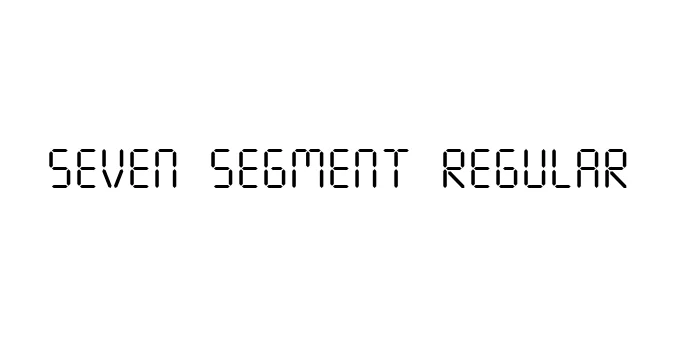
Seven Segment Regular
Designed by Sergey V. Ryabov (Style-7)
The Seven Segment Regular font is a specialized digital typeface designed to emulate the classic visual output of light-emitting diode (LED) and liquid crystal display (LCD) screens. Originally conceptualized to replicate the look of vintage calculators, digital watches, and industrial control panels, the font utilizes a rigid, segmented structure. Each character is constructed from a specific arrangement of bars, mirroring the hardware limitations of 20th-century electronic components to create a sense of technical precision and nostalgia.
Today, Seven Segment Regular is widely used in modern graphic design to evoke a retro-tech or science-fiction aesthetic. It is highly effective for projects involving countdown timers, scoreboard graphics, and fitness tracking interfaces. Because of its distinct geometric constraints, the font provides immediate visual shorthand for anything related to electronic data, timekeeping, or digital measurement, making it an essential tool for UI/UX designers and creative professionals alike.
Seven Segment Regular Best Uses
Ideal for creating realistic digital clock and watch displays in web or mobile apps.
Excellent for HUD elements, high scores, and mission timers in retro or sci-fi games.
Perfect for tech-themed promotional materials, sales countdowns, and hardware branding.
Great for mockups of electronic control panels and diagnostic readouts.